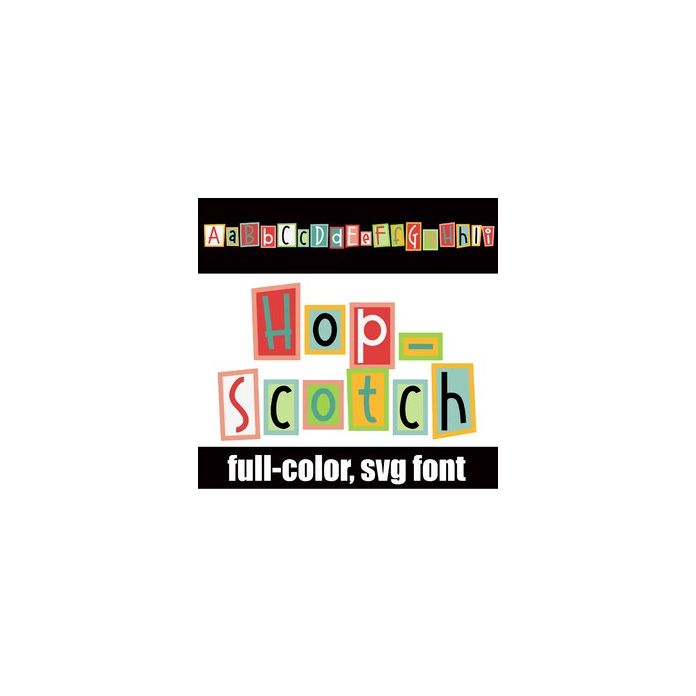
This full-color font features block like hopscotch squares with colorful lettering. There is an alt case w/ additional colors you can access through your system or Silhouette's glyph map.